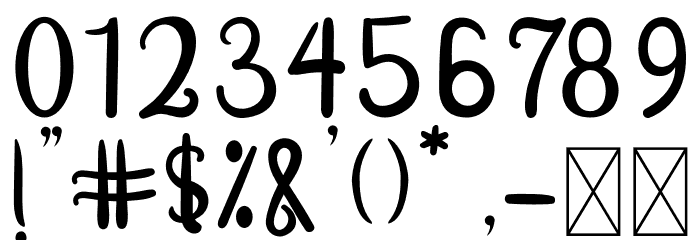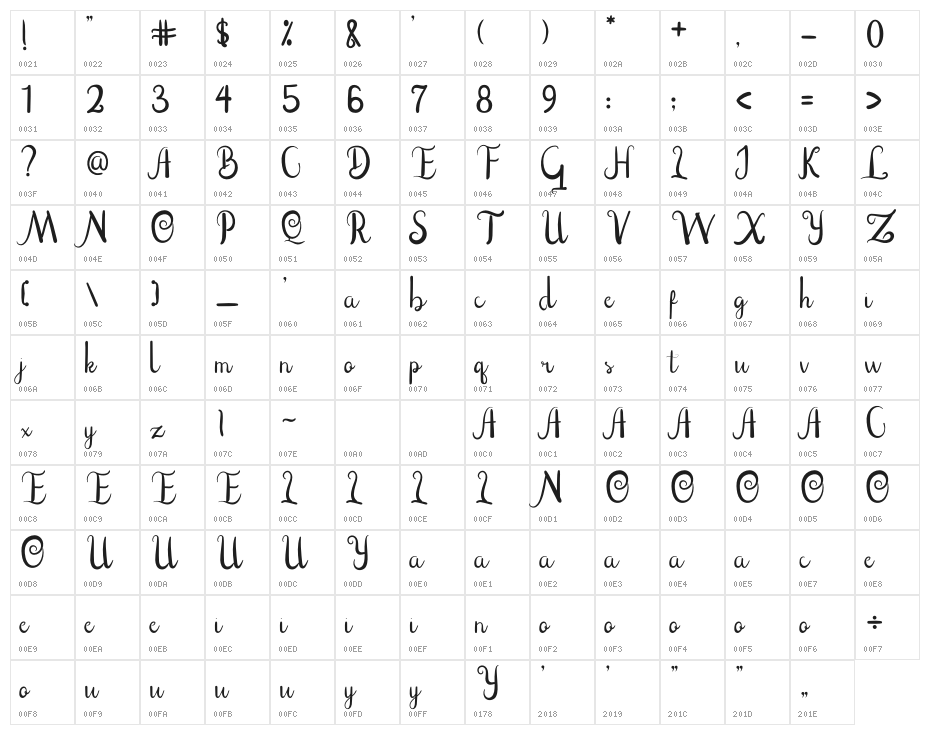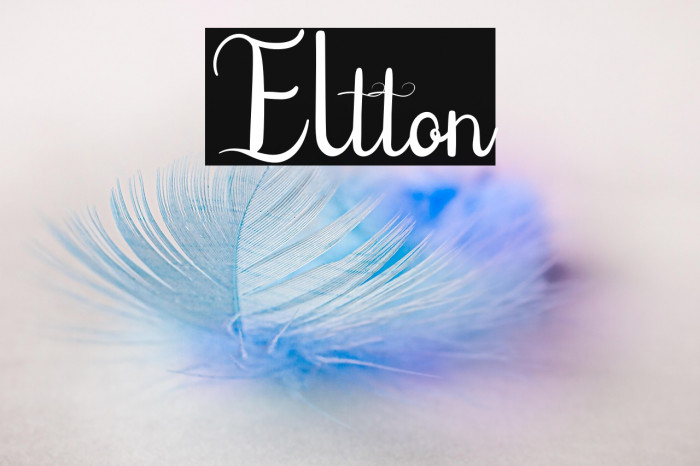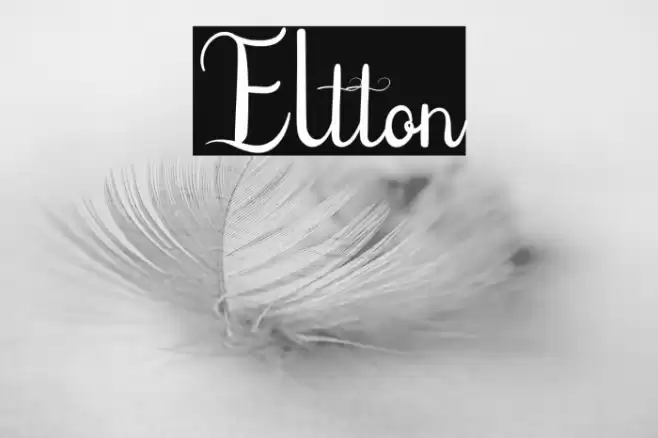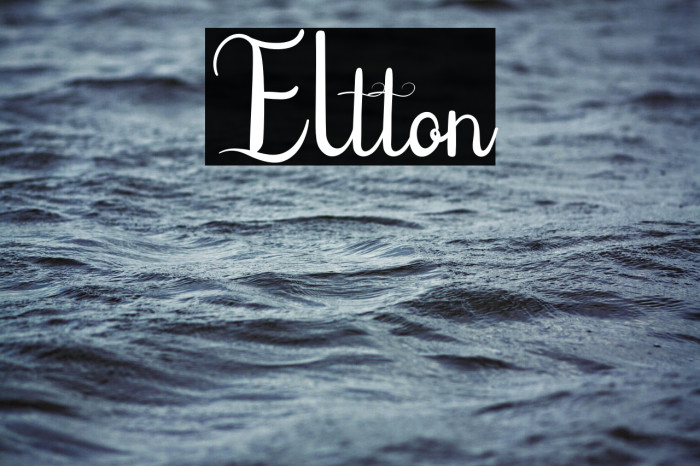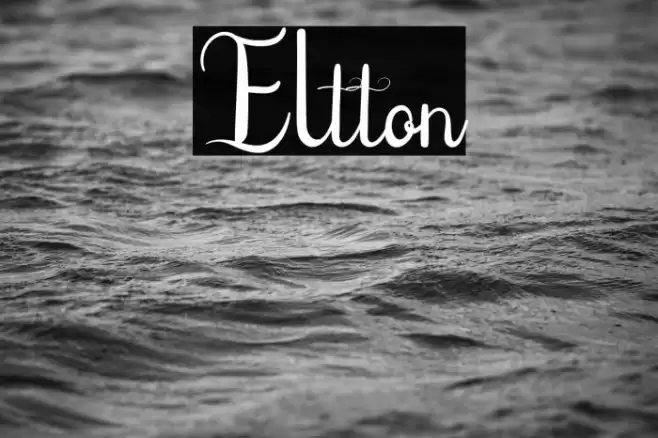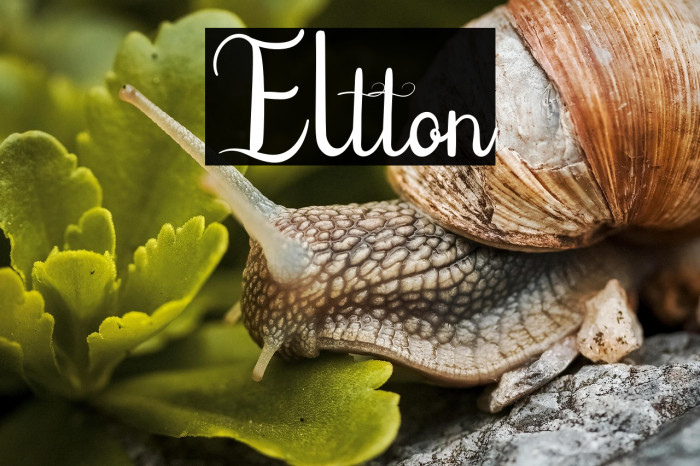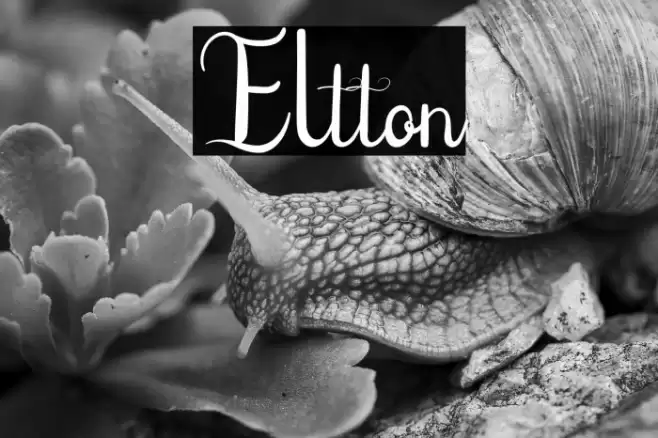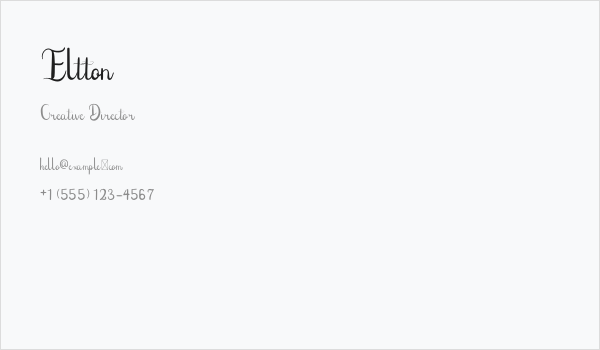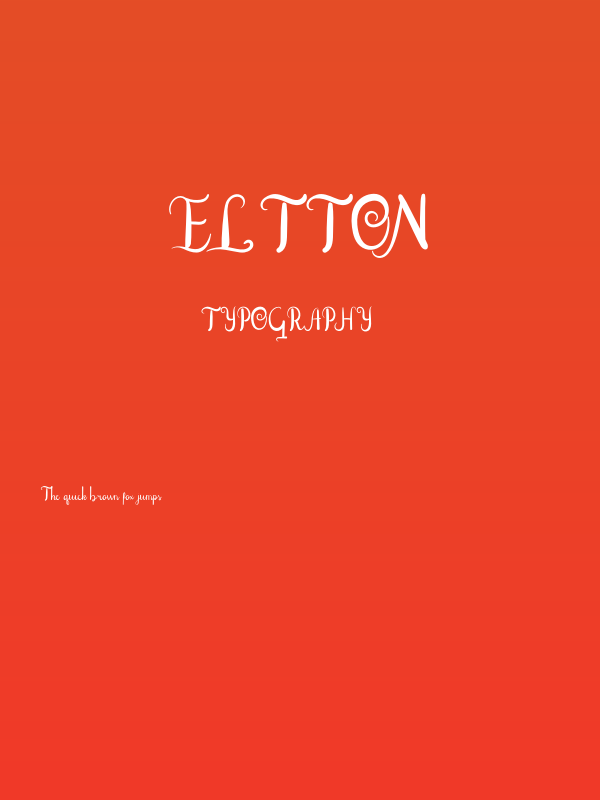
Eltton Font
Eltton Description
This font features a unique blend of elegance and playfulness, characterized by its flowing, cursive-like strokes and whimsical flourishes. The uppercase letters exhibit a distinct flair with elongated lines and subtle curves, while the lowercase letters maintain a consistent, smooth flow that enhances readability. The numerals are bold and clear, ensuring they stand out in any context. Special characters are creatively designed, adding a touch of personality to the overall style. The font's artistic nature makes it suitable for projects that require a personal, handcrafted feel.
| Use Case | Logos, Invitations, Creative projects |
| Proposed Projects | Ideal for wedding invitations, greeting cards, branding, and creative projects that require a personal touch. |